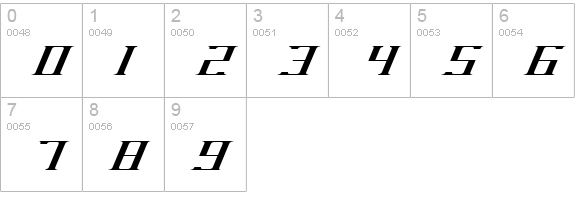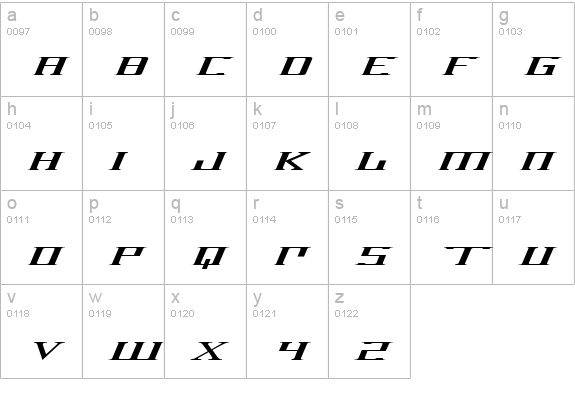
DarkWind Expanded Italic Font Details
DarkWind Expanded Italic is a distinctive, extended-width, italic variant in the DarkWind typeface family \xE2\x80\x94 well suited to design and typography projects.
DarkWind Expanded Italic font is a striking and modern typeface that exudes elegance and sophistication. Its sleek design features elongated letterforms with a subtle slant, adding a touch of flair to any project. The bold and dynamic look of this font makes it perfect for branding, headlines, and editorial design. What sets DarkWind Expanded Italic font apart is its versatility and unique style, making it suitable for a wide range of applications. Whether you're designing a sleek website, eye-catching poster, or stylish packaging, this font will make your text stand out. And the best part? DarkWind Expanded Italic font is available for free download at FontsMarket.com. So you can add this stunning typeface to your collection without breaking the bank. Don't miss out on the opportunity to elevate your designs with the sleek and modern DarkWind Expanded Italic font.